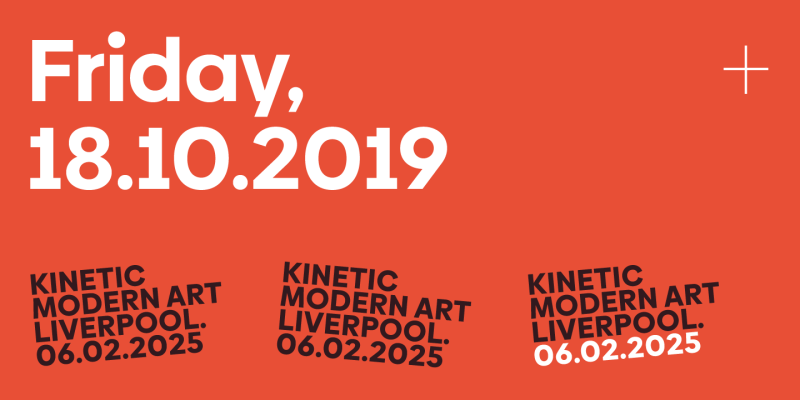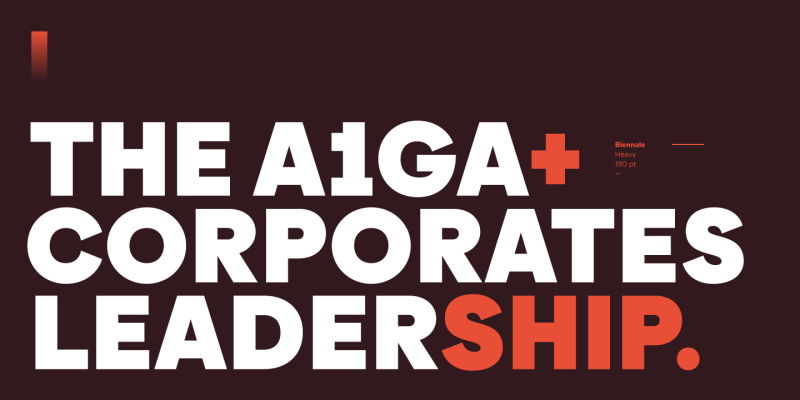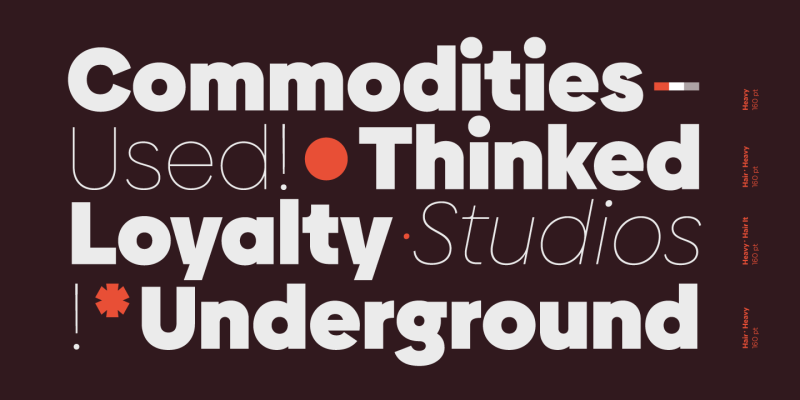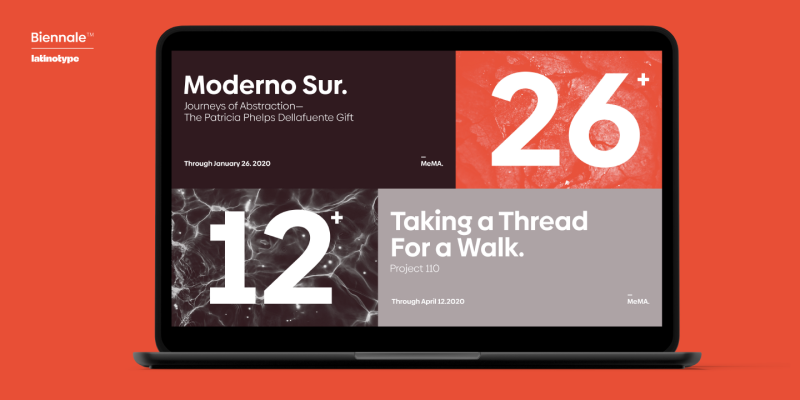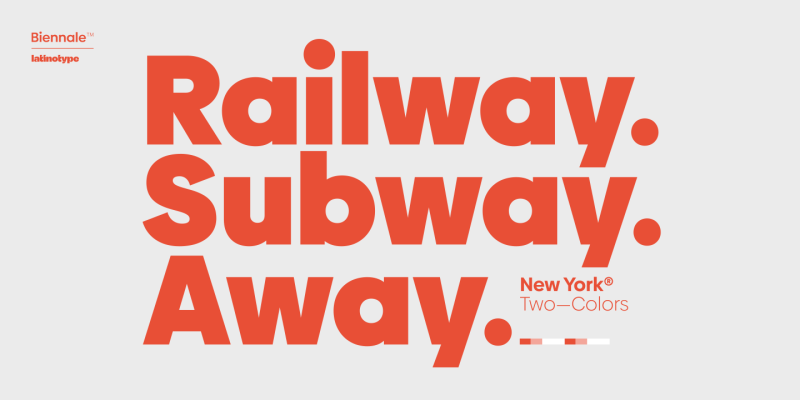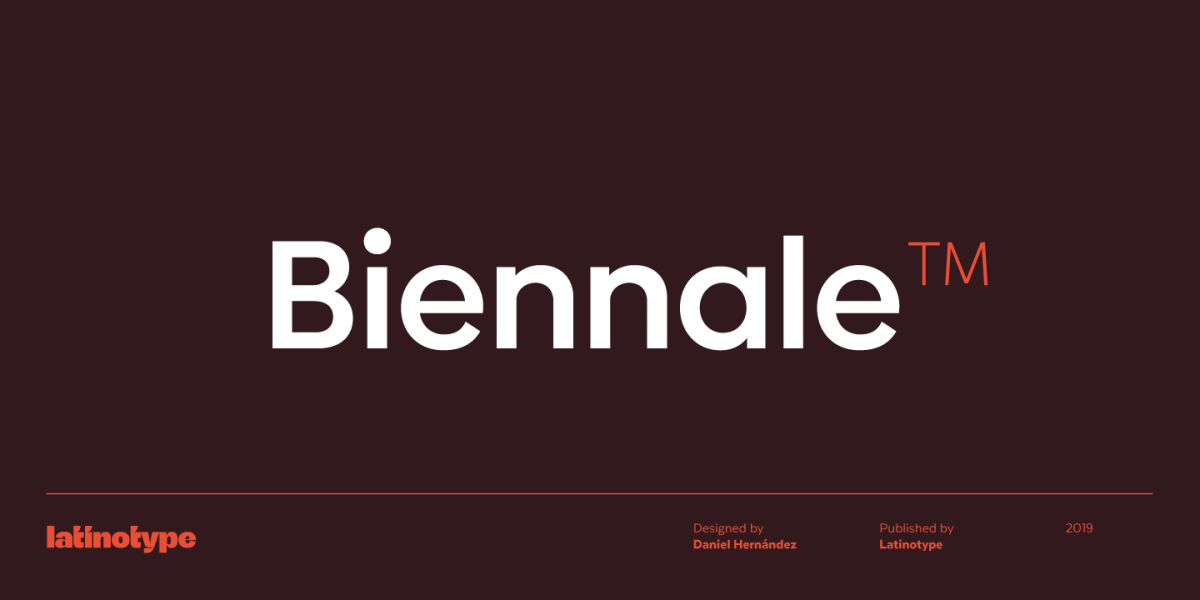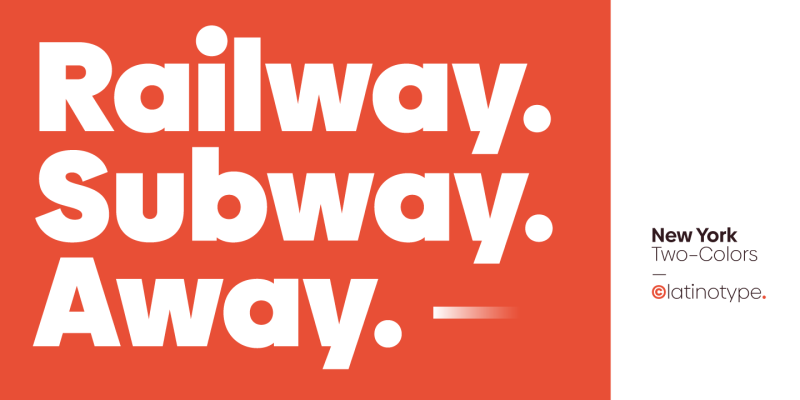
Biennale Font
Biennale is a geometric typeface with a strong character and a large x-height which make it an excellent choice for a wide range of applications, such as headlines or br…
Biennale is a geometric typeface with a strong character and a large x-height which make it an excellent choice for a wide range of applications, such as headlines or branding. Although common in style, Biennale distinctive details and color on the page allow users to create really unique designs. The font comes in 11 weights, from Hair to Heavy, and includes matching italics. As you would expect from Latinotype, this typeface comes with a standard set of 417 characters that support over 200 Latin-based languages.
Biennale Font stays legible at small sizes, which makes it a strong choice for navigation, buttons and dashboards in web design and app interfaces.
Clean sans serifs like Biennale Font are the default language of SaaS, fintech and product branding.
Biennale Font is a Sans Serif Fonts typeface tagged Branding, Geometric, Headlines, Sans Serif. It works well for headlines, logos, posters, social media graphics and branding projects that need a distinctive sans serif fonts look.